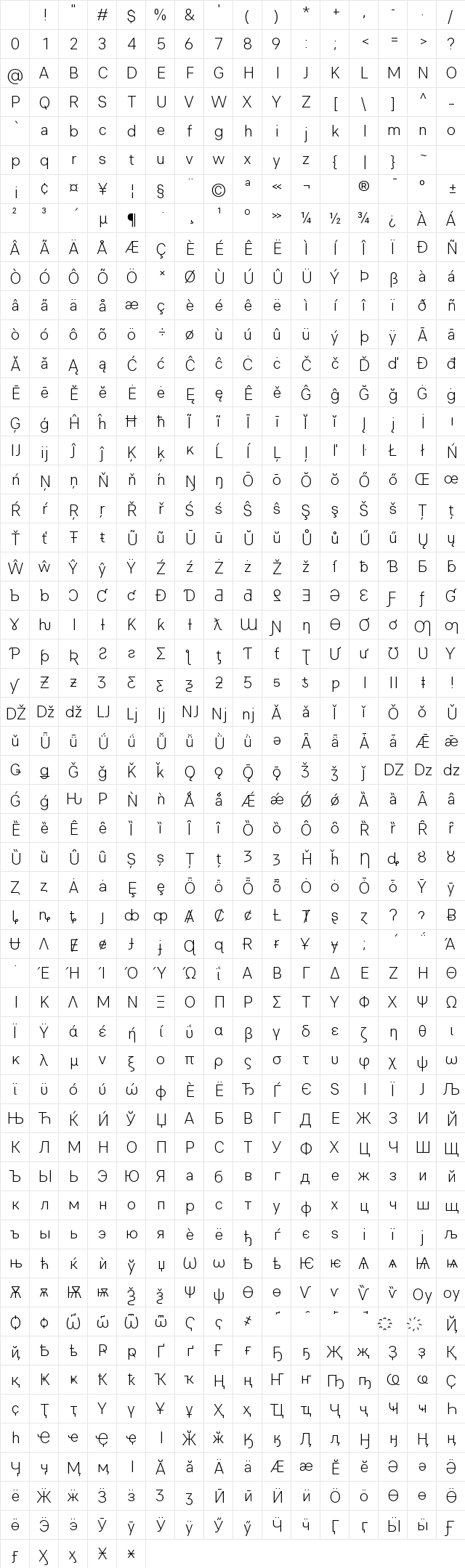
Finder Light is a composed and adaptable typeface that performs quietly and consistently across a wide range of design contexts. Its slender proportions lend an understated elegance to any composition.